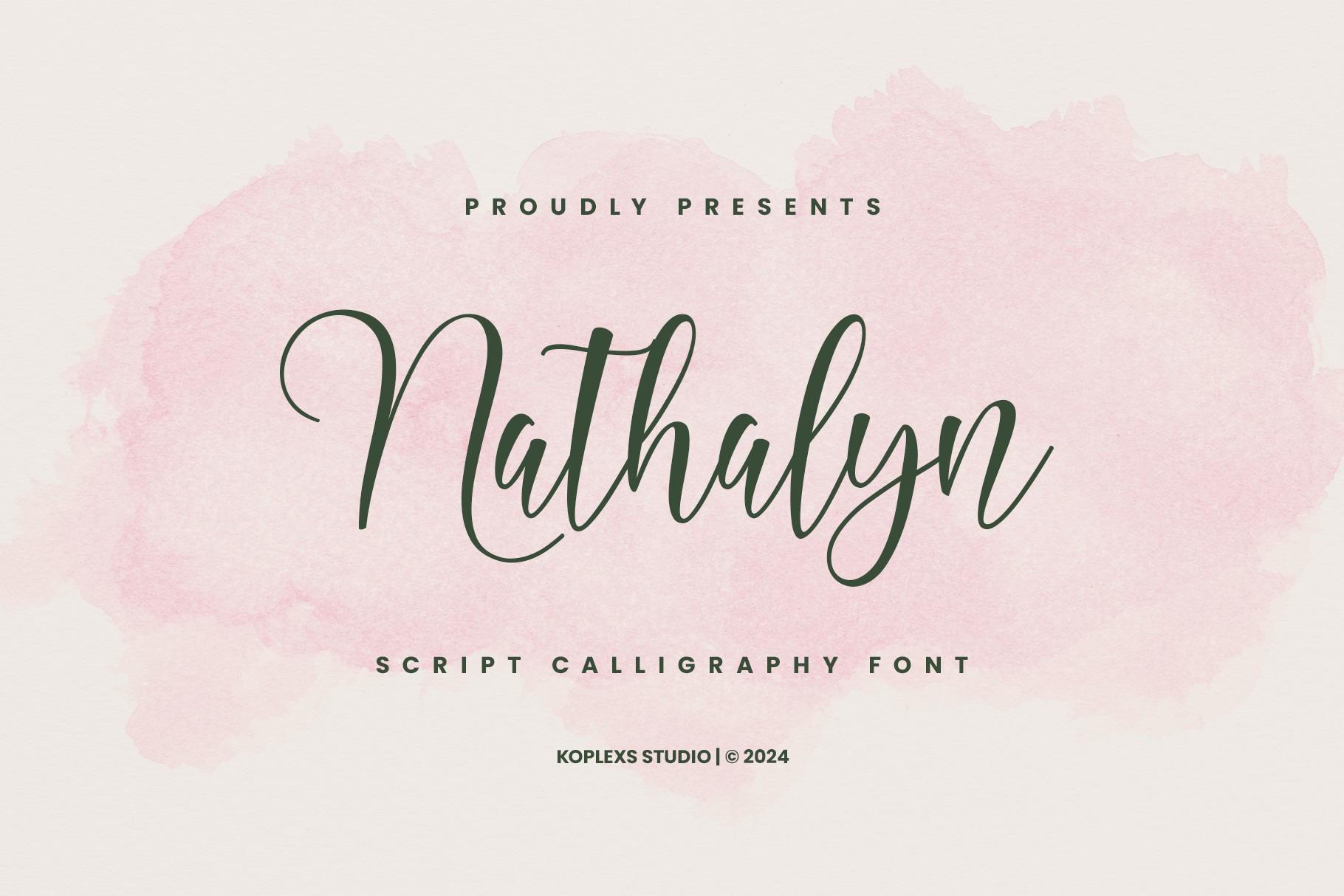
Nathalyn - Script Calligraphy Font
Nathalyn - Script Calligraphy Font: Elevate Your Designs with Exquisite Handwritten Elegance Nathalyn, a meticulously crafted script calligraphy font designed to infuse your designs with a touch of timeless elegance and personal flair. Inspired by the captivating beauty of classical calligraphy, Nathalyn exudes flowing, intricate characters that are perfect for crafting captivating headlines, enchanting invitations, and mesmerizing artwork.
Key Features of Nathalyn:
Alternate Characters: Nathalyn comes equipped with an extensive range of alternate characters for each letter, empowering you to add variation and creativity to your designs.
Ligatures: Nathalyn boasts beautiful ligatures that automatically connect certain letters, ensuring a smooth and professional appearance.
Multilingual Support: Nathalyn supports multiple languages, making it the perfect choice for designs intended for a global audience.
Nathalyn is Ideal for:
Wedding Designs: Create exquisite wedding invitations and unforgettable name cards with Nathalyn.
Branding Designs: Add a personal touch to logos, branding, and marketing materials with Nathalyn.
Poster and Flyer Designs: Craft attention-grabbing posters and flyers that stand out from the crowd with Nathalyn.
Packaging Designs: Design unique and captivating product packaging with Nathalyn.
Calligraphy Art Designs: Create stunning and inspiring calligraphy artworks with Nathalyn.
Nathalyn is an indispensable tool for any designer seeking to infuse their creations with the elegance and charm of handcrafted calligraphy. With its comprehensive features and captivating design, Nathalyn will empower you to craft designs that are both mesmerizing and memorable. Embrace Nathalyn today and experience the difference!